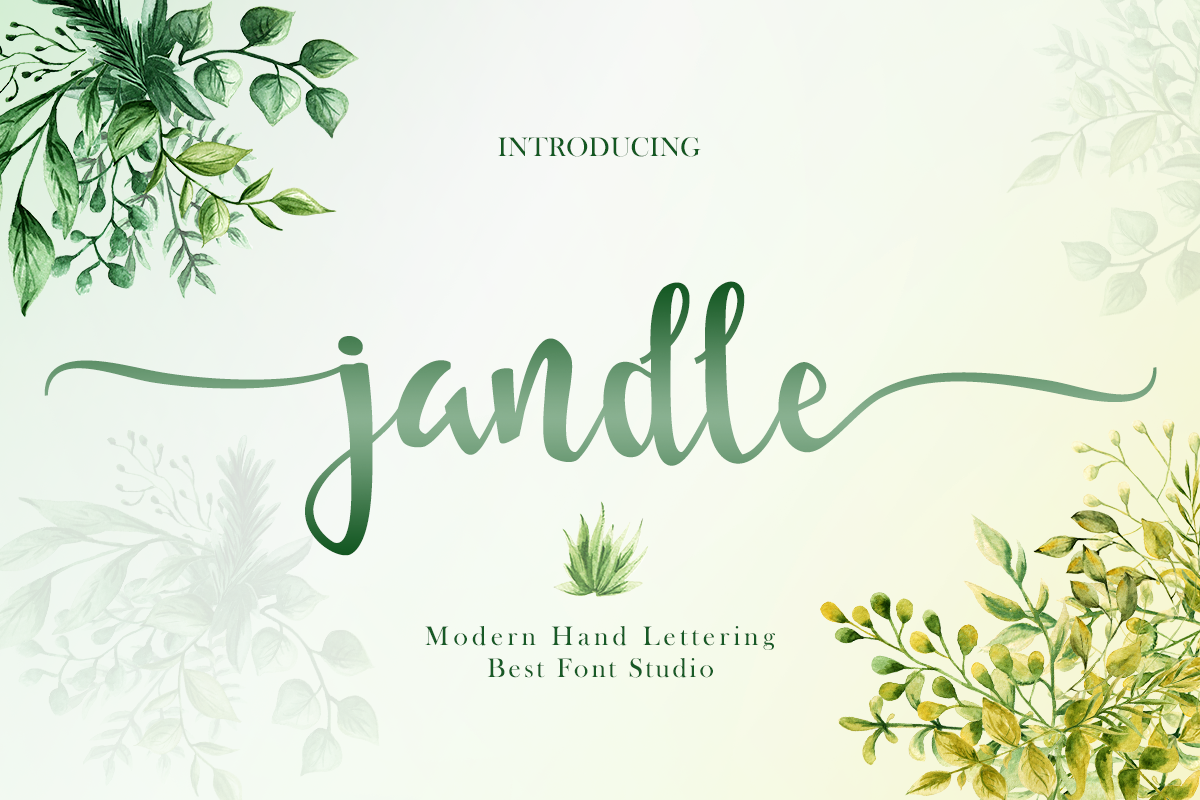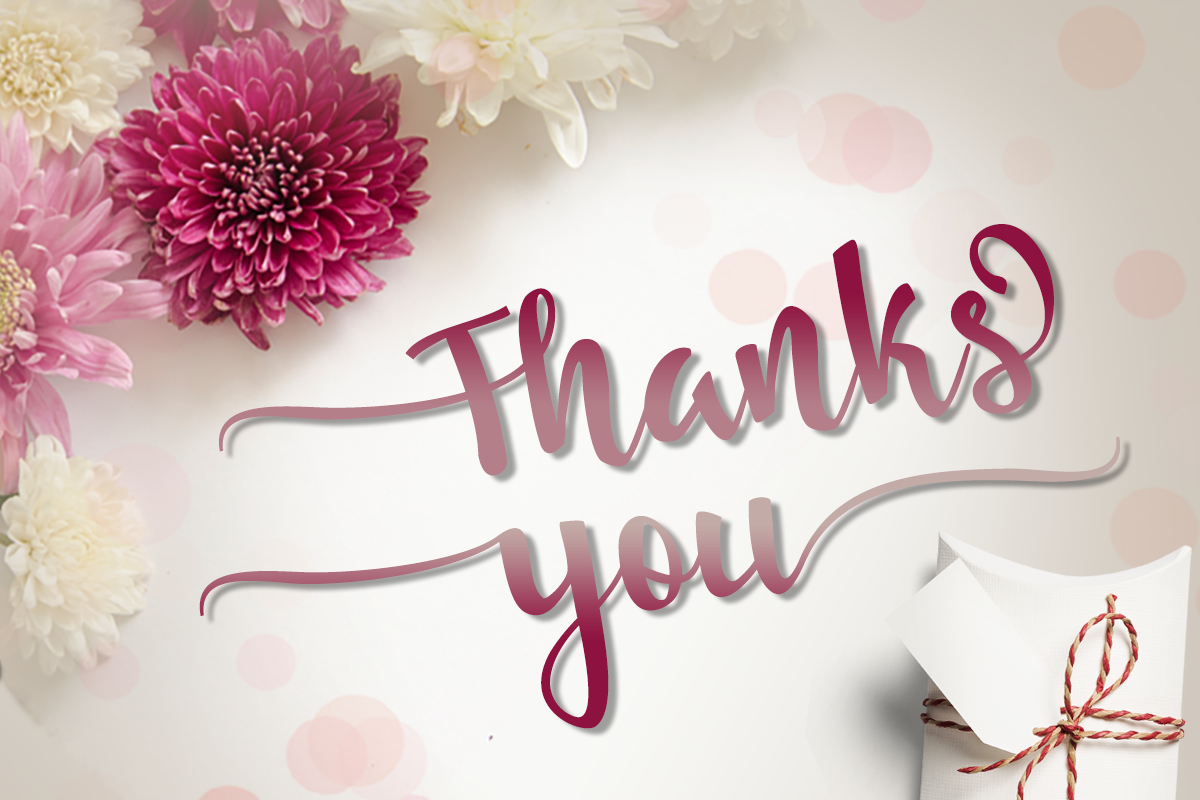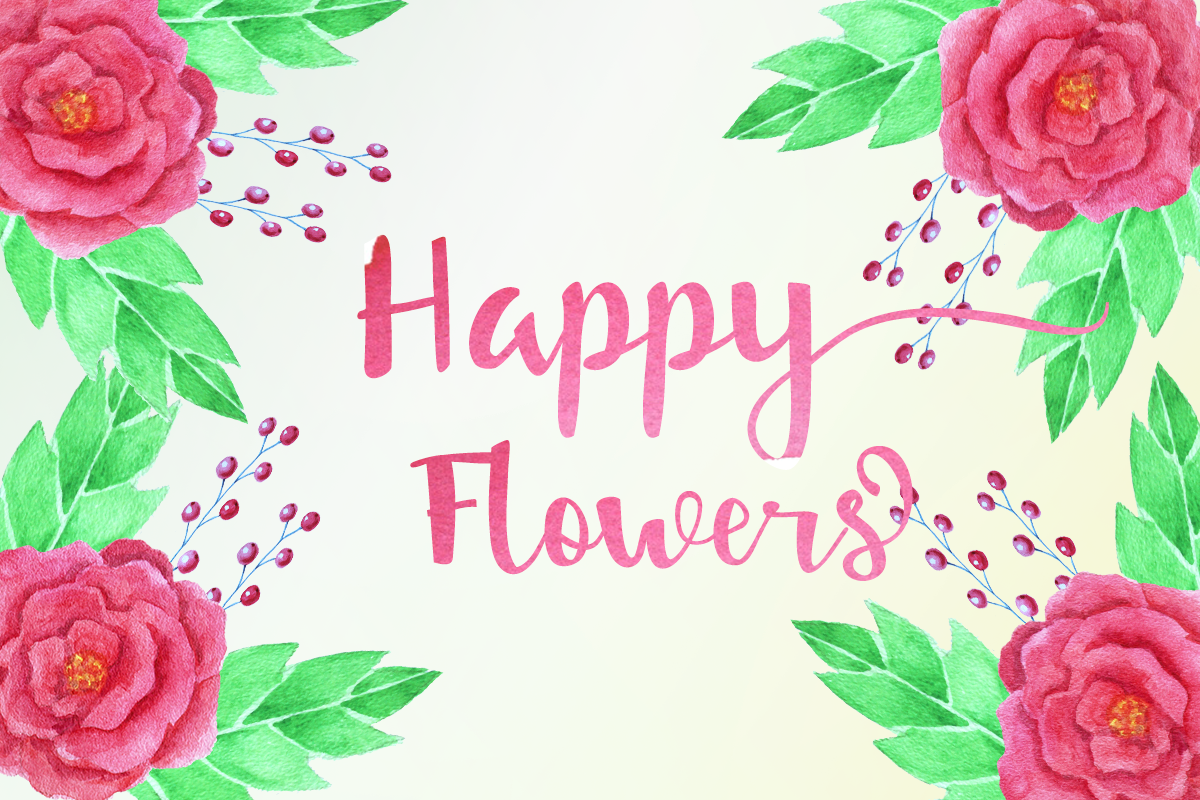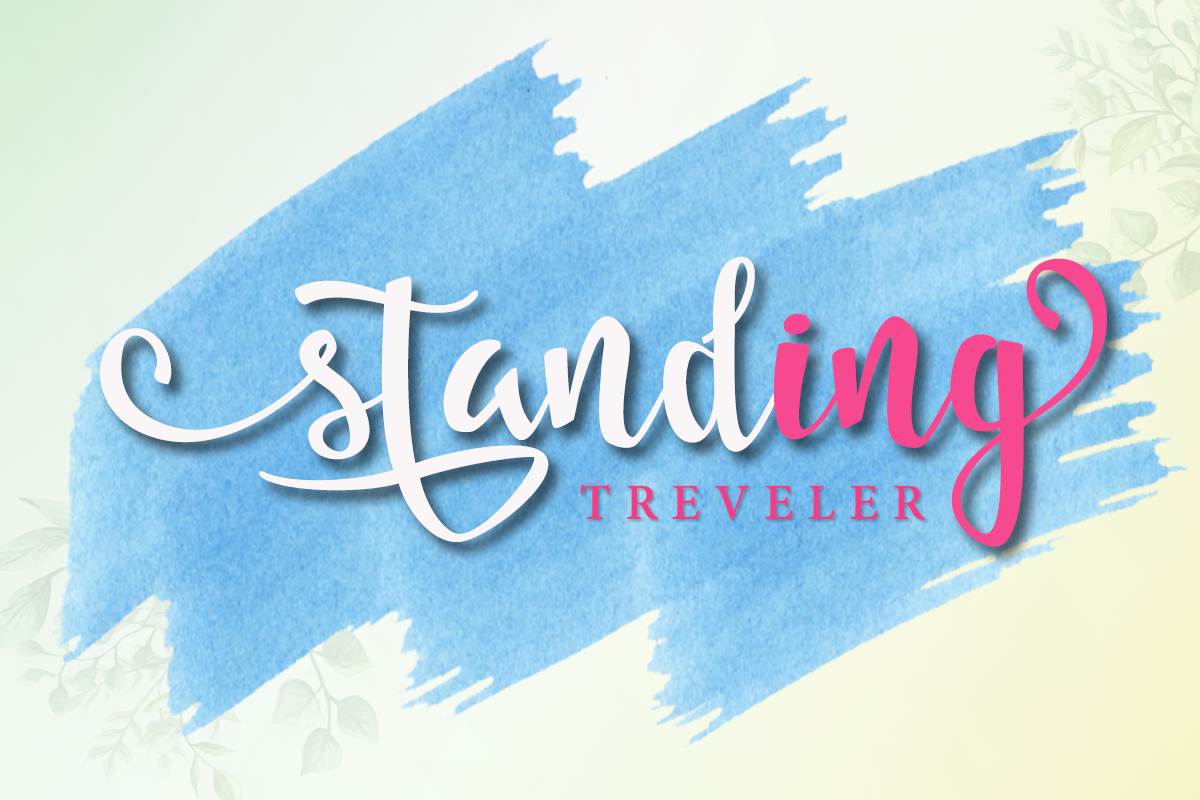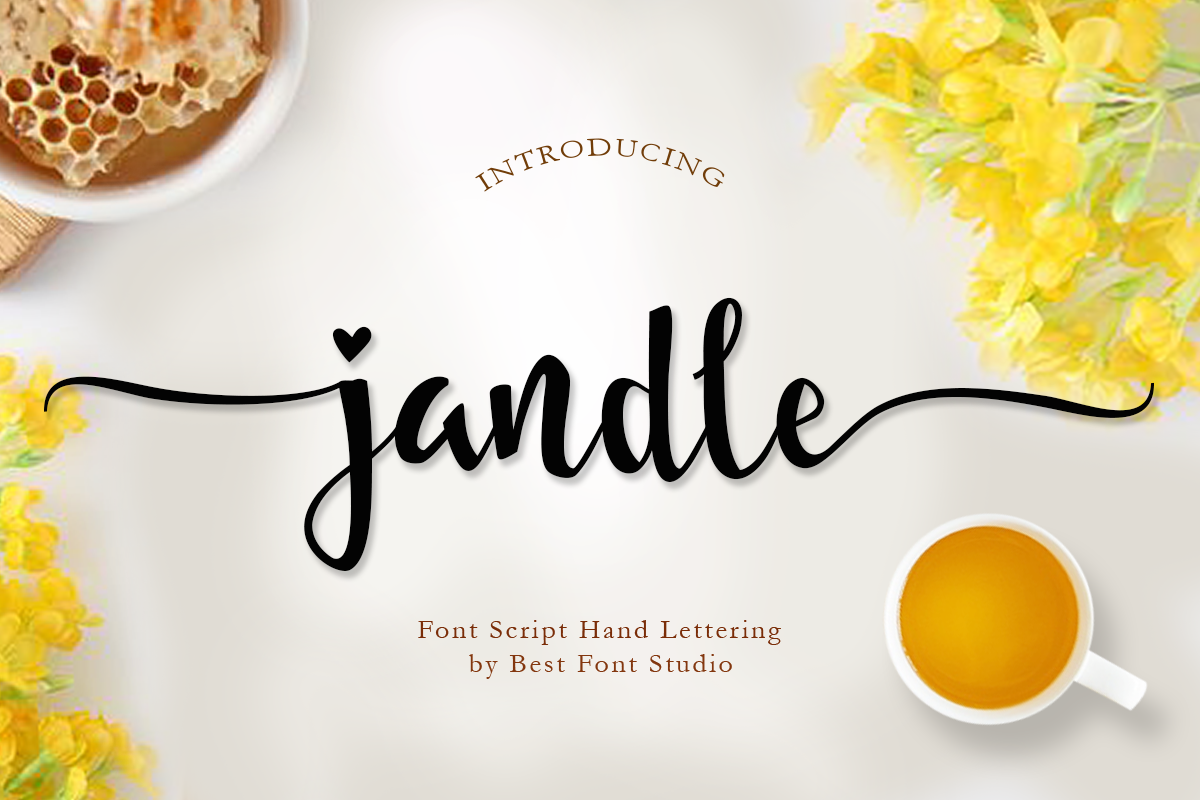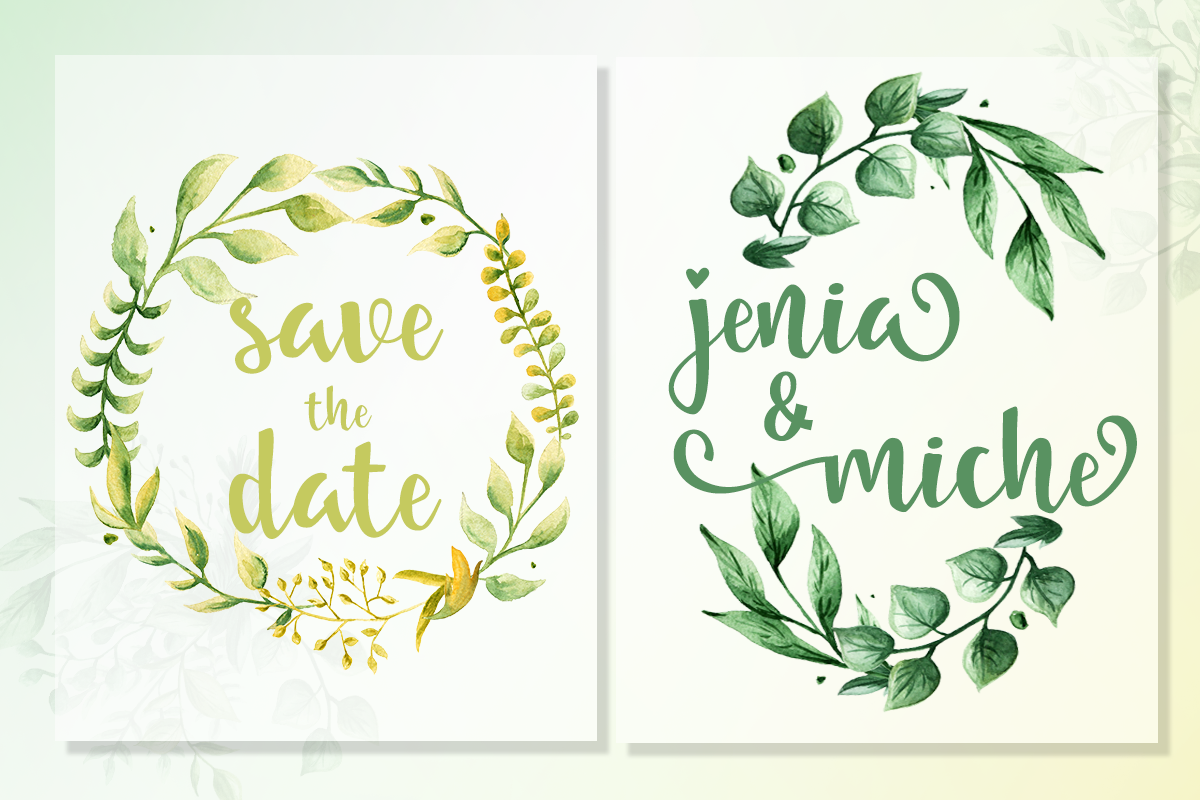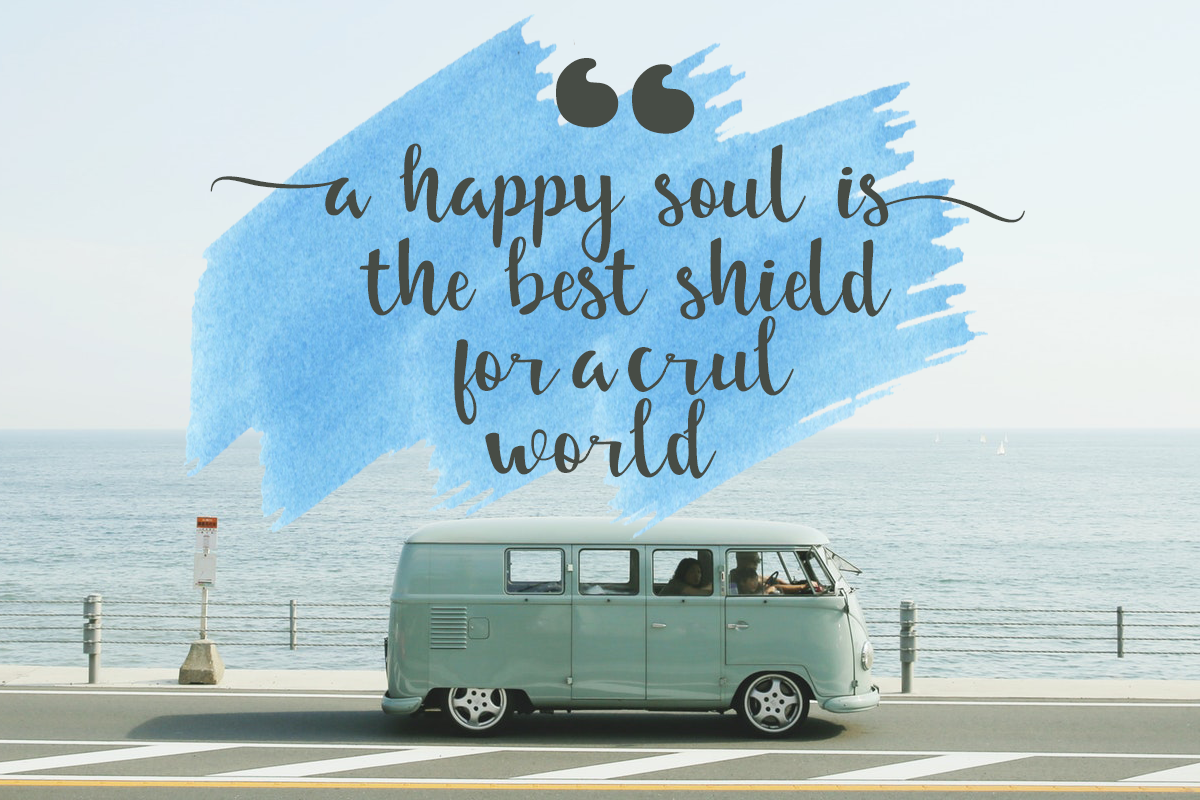
Jandle Script Font
Jandle Script is handwritten Modern calligraphy fonts, combines from copperplate to contemporary typeface with a dancing baseline, classic and elegant touch. Can be used for various purposes.such as headings, signature, logos, wedding invitation, t-shirt, letterhead, signage, lable, news, posters, badges etc.